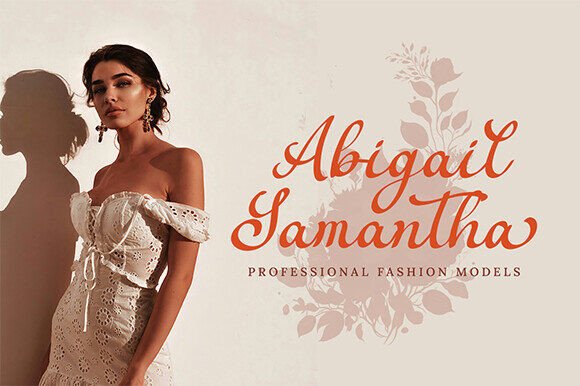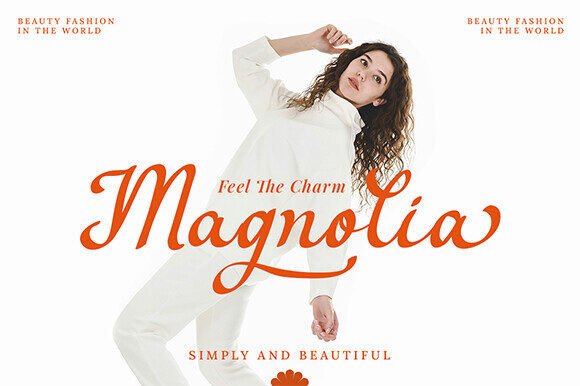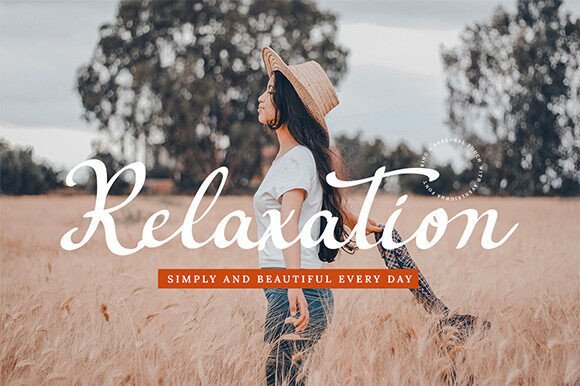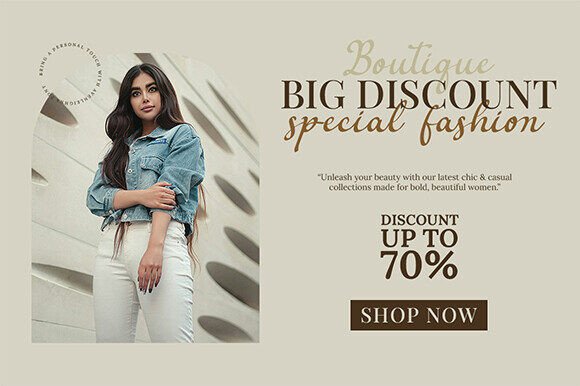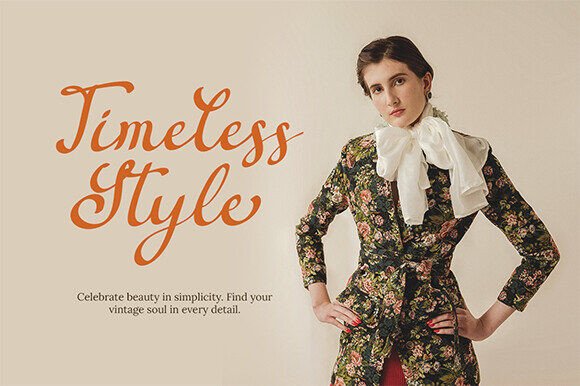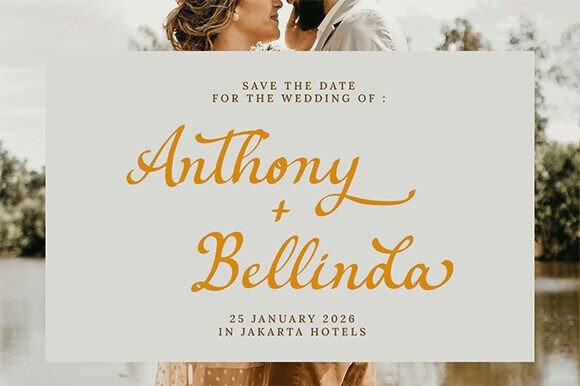
The Avenleighna Font: A Beautifully Crafted Script Font for Creative Projects
I still remember the design moment that led me to discover the Avenleighna font. I was working on a branding project for a client’s boutique store, and I was struggling to find the perfect font that would capture the essence of their vintage-inspired aesthetic. The client wanted a font that was both modern and nostalgic, elegant and approachable. After hours of searching, I stumbled upon Avenleighna, and it was love at first sight. In this article, I’ll share my experience with this beautiful script font, its features, and how to make the most of it in your creative projects.
An Honest Review of Avenleighna Font
What I Love About Avenleighna ✨
• 💫 Effortless casual strokes: Avenleighna’s script style has a relaxed, natural feel that makes it perfect for creative projects that require a personal touch.
• 🔥 Vintage allure: The font’s subtle vintage undertones add a touch of sophistication and elegance to any design.
• ✅ Modern simplicity: Avenleighna’s clean lines and simple shapes make it versatile and easy to pair with other fonts.
• 🌈 Versatility: This font is perfect for logos, branding, invitations, social media, and editorial layouts.
• ⚠️ Limited use in body text: Avenleighna is best used for headlines, titles, or short paragraphs. Its script style may not be suitable for long blocks of text.
• 🤔 Kerning issues: As with any script font, kerning can be a bit tricky. Make sure to adjust the tracking and kerning to achieve the best results.
The Backstory of Avenleighna Font
Avenleighna was designed by a talented type designer who wanted to create a font that would blend the elegance of vintage scripts with the simplicity of modern typography. The designer’s inspiration came from classic script fonts, as well as modern calligraphy and hand-lettering. The result is a beautiful, versatile font that’s perfect for creative projects that require a touch of sophistication and elegance.
Q: What is Avenleighna font best used for?
A: Avenleighna font is best used for logos, branding, invitations, social media, and editorial layouts that require a touch of elegance and sophistication.
Q: Can I use Avenleighna for body text?
A: While Avenleighna can be used for short paragraphs, it’s not recommended for long blocks of text. Its script style may be difficult to read in large quantities.